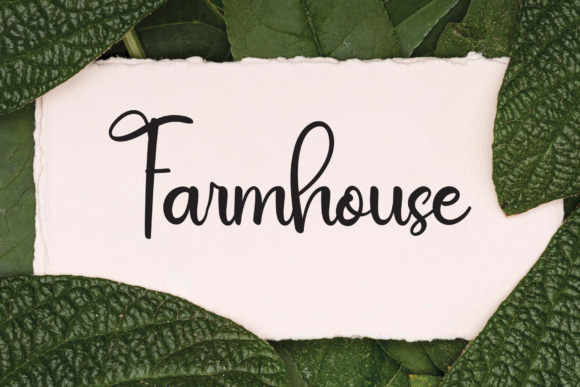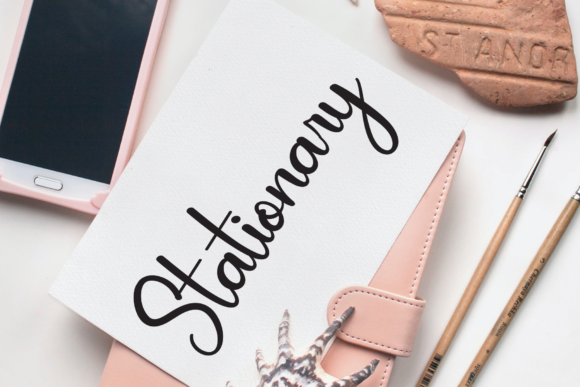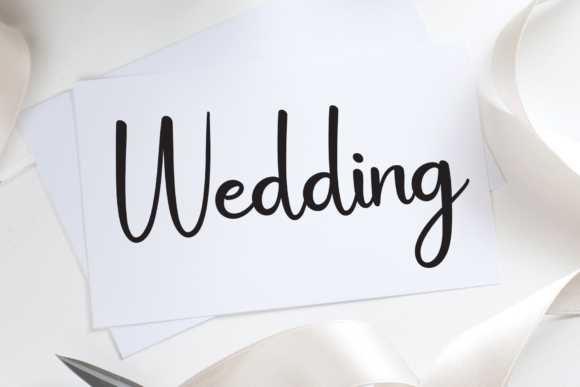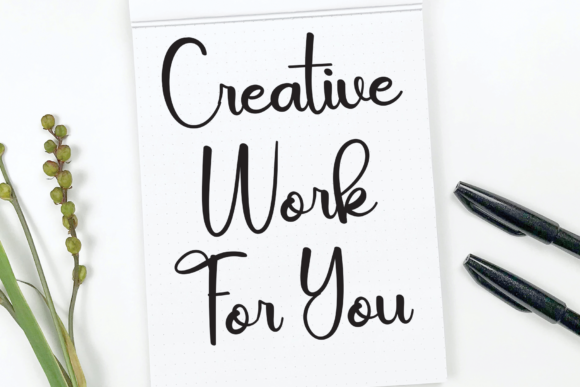
The Perfect Font for a Whimsical Touch
Have you ever found yourself lost in a sea of words, trying to find the perfect font to convey the emotions of your design? Maybe you’re creating a wedding invitation, a love letter, or a romantic poster. Whatever it is, the right font can make all the difference.
Enter the Applique Font, a beautiful script font that will transport your audience to a world of romance and whimsy. With its delicate curves and elegant lines, this font is the perfect choice for designers who want to add a touch of sophistication and beauty to their work. As a PUA coded font, you’ll have access to all the glyphs and sweeps you need to create stunning designs. Whether you’re a seasoned designer or just starting out, the Applique Font is a valuable addition to your toolkit.
Key Features of Applique Font
- Unique Characteristics: The font features intricate, hand-drawn designs and ornate details, making it perfect for creating elegant and sophisticated designs. Its unique characteristics include swashes, flourishes, and ornaments that add a touch of luxury to any text.
Applique Font Review
Overall, I think Applique Font is a decent choice for those looking for a unique font, but it’s not without its limitations.
- The most striking feature of Applique Font is its intricate, detailed design. The level of craftsmanship that’s gone into creating each character is impressive.
- The font’s versatility is another major plus point. It can be used for a wide range of applications, from body text to headings, and even logos.
- Applique Font is also highly customizable, making it easy to adjust the font to suit your specific needs.
- One of the main drawbacks of Applique Font is its readability. While the font is visually stunning, it can be difficult to read at smaller font sizes.
- The font’s complexity also makes it a bit of a resource hog. This can lead to slower load times and decreased performance.
- Additionally, the font’s unique design can be overwhelming in certain contexts. It’s essential to use it judiciously to avoid visual overload.
Overall, I would give Applique Font 3.5 out of 5 stars. While it’s a beautiful font with many uses, its limitations make it less suitable for certain applications.
Tips for Getting the Most Out of Applique Font
Use Applique Font to add a creative touch to your designs, such as:
- Adding a decorative font to a logo or title.
- Creating a custom invitation or card design.
- Enhancing a presentation or report with a unique font.
Applique Font is commonly used in:
- Designing logos and branding materials.
- Creating custom invitations and